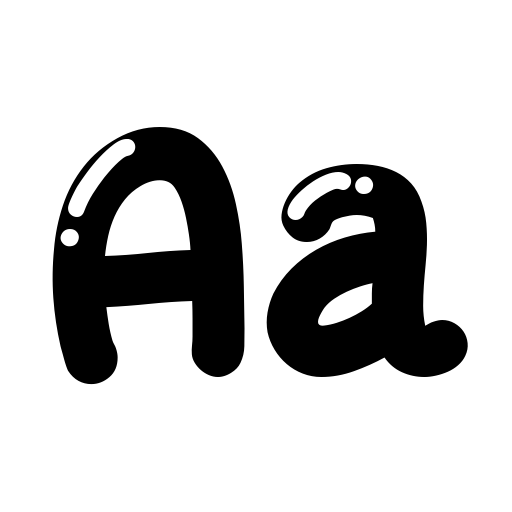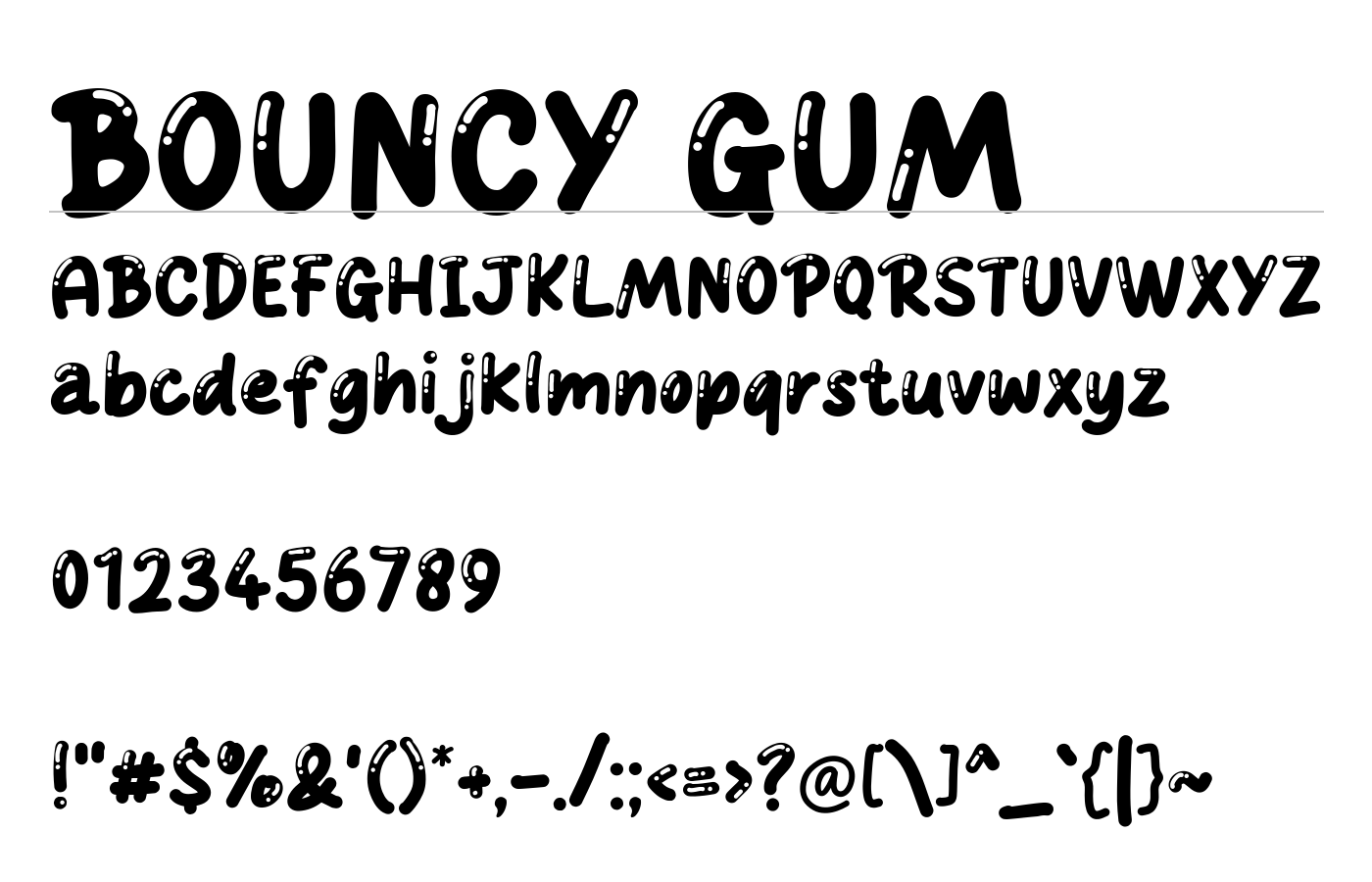
Bouncy Gum is a playful and chunky sans serif font with a rounded, casual feel that mimics hand-drawn lettering. Its bold, bubbly letterforms feature a lively bounce and eye-catching highlights, making it perfect for fun and lighthearted designs like children’s products, party invitations, or whimsical branding. This font works well in headlines and display uses where a friendly, energetic vibe is desired.
BOUNCY GUM Font
About BOUNCY GUM Font